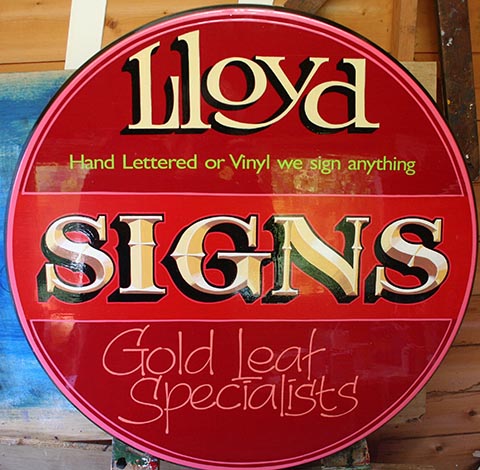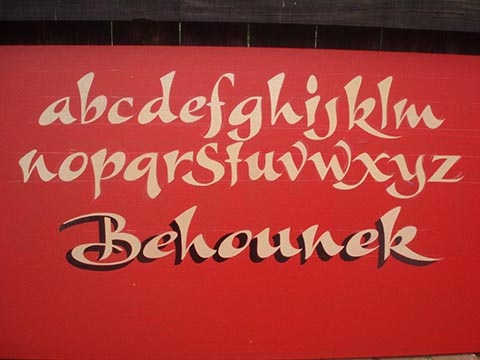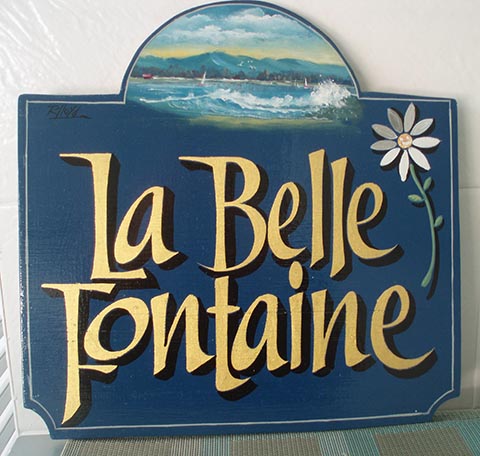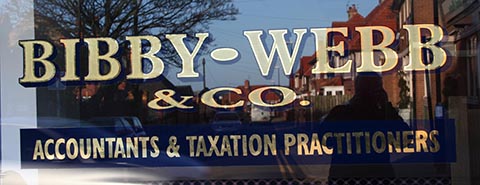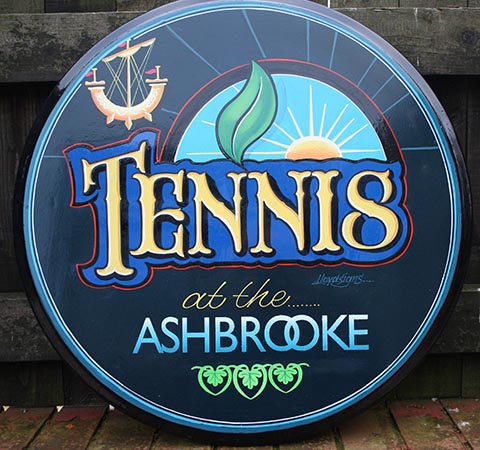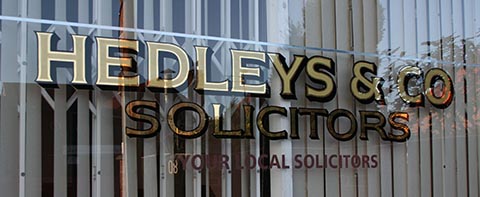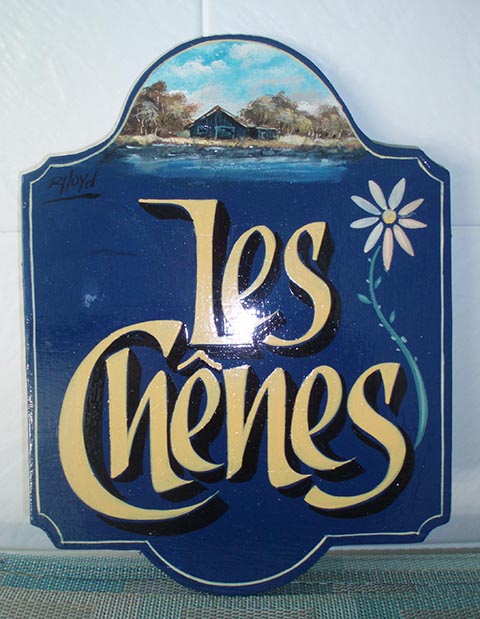
Im Ron Lloyd, I run Lloyd Signs over in Sunderland, England, ive been signwriting for 57 years now and look forward to posting some of my work on the site.
Welcome from a traditional signwriter just down the road in Yorkshire, there are some great guys on here doing some cracking work - enjoy !!
Heres a few of my jobs that i thought id share, just a couple from my camera
This is a painting done for a friend who is the "top gun" of a company i work for.
Just a 8x4 hand lettered sign
Coat of arms on a bar table top.
SPOT ON those Ron, thanks for sharing!
VERY NICE work! Boy it's nice to see the hand lettering and I love the clean window gilding. Thanks for sharing the photos.
Nice worK !
What is the name of the font on "Bed & Breakfast"?